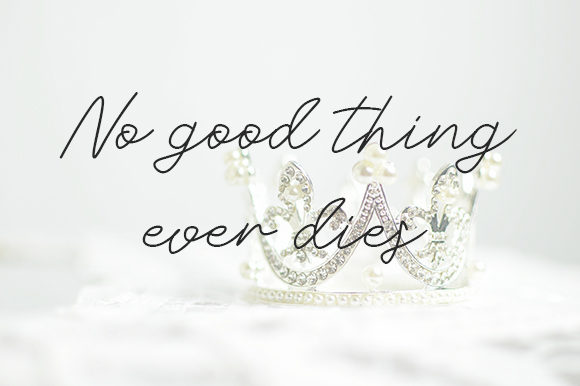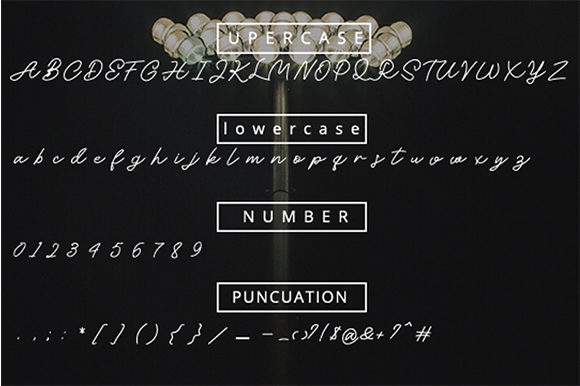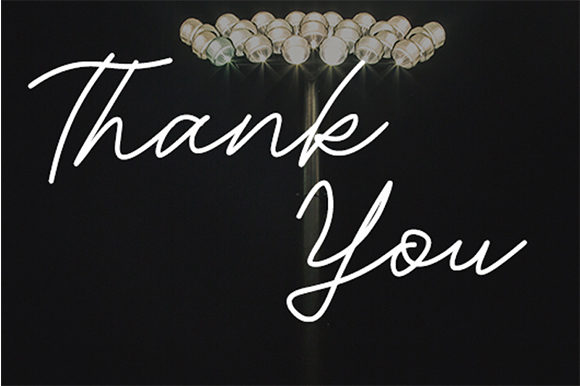
Introduction to Moelya Font
Moelya is a unique handwritten font, full of energy.
Use it to add an authentic touch to any design project .
Key Features of Moelya Font
Why Choose Moelya Font?
Moelya Font offers exceptional quality and versatility, making it a valuable addition to your design toolkit. Whether you’re creating for personal projects or commercial use, Moelya Font delivers professional results.